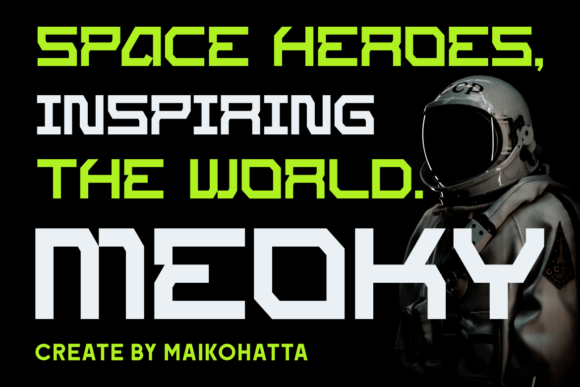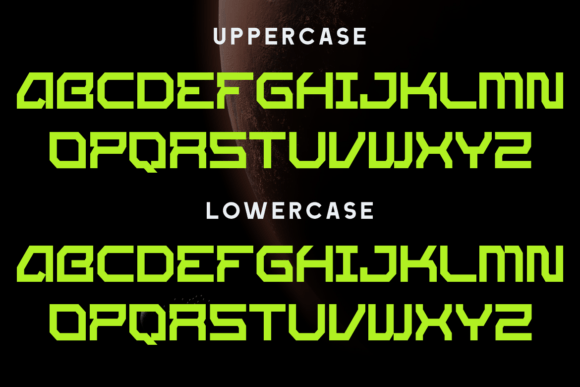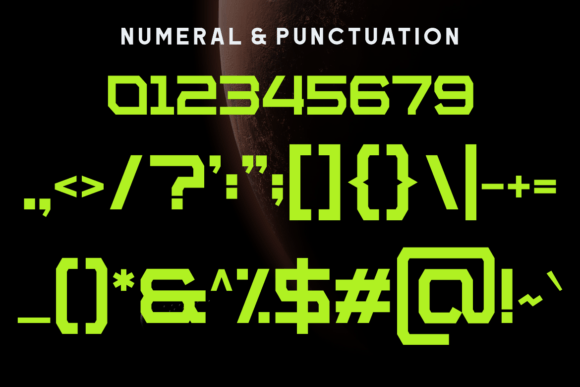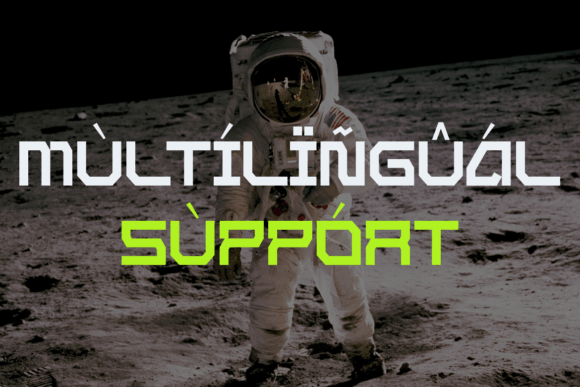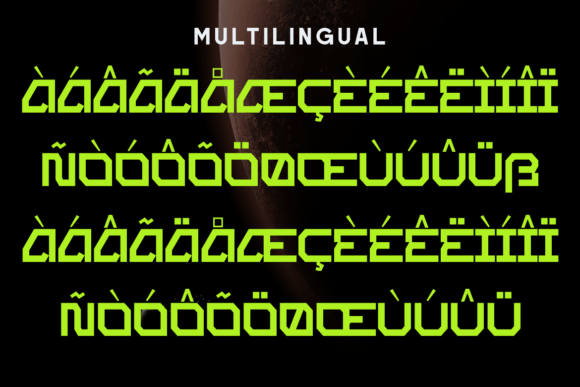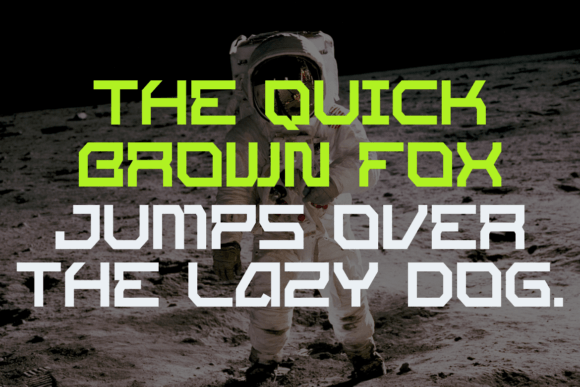
Introduction to Moeky Font
Introducing our new product **Moeky** – Modern Futuristic Typeface **TECHNO** is a type of lettering that features a futuristic design inspired by advanced technology.
This font reflects the digital era and technological advancements, bringing a sense of modernity, innovation, and energy to any design With sharp lines, geometric letter shapes, and futuristic elements, this font is suitable for projects related to technology, robotics, science, and modern lifestyle.
Key Features of Moeky Font
Why Choose Moeky Font?
Moeky Font offers exceptional quality and versatility, making it a valuable addition to your design toolkit. Whether you’re creating for personal projects or commercial use, Moeky Font delivers professional results.